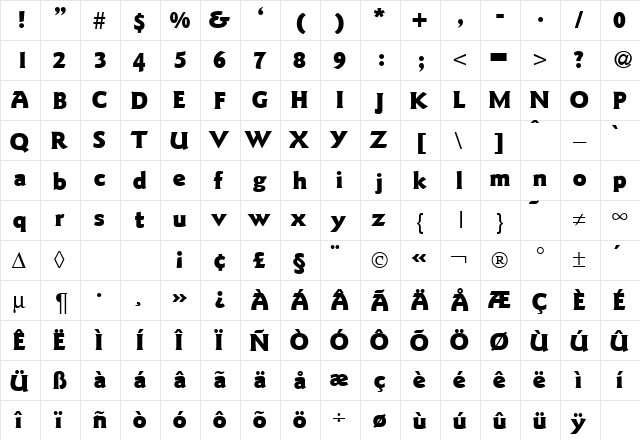
GoudySansTwoBlack Regular Font Preview
GoudySansTwoBlack Regular
GoudySansTwoBlack Regular Font Details
Design Context for GoudySansTwoBlack Typeface
GoudySansTwoBlack takes a measured approach to typography — its balanced proportions and neutral character make it a reliable workhorse for both digital and print work.